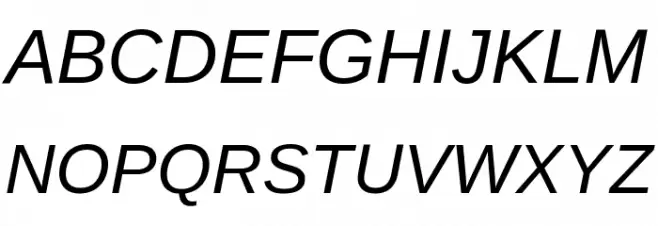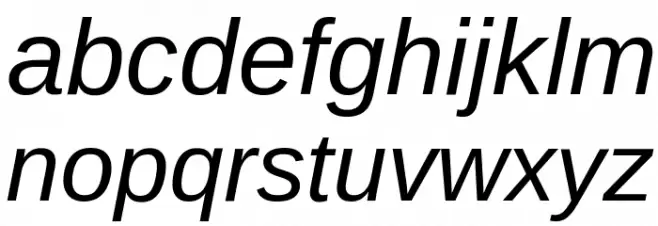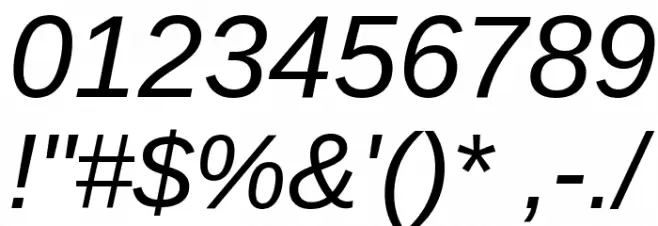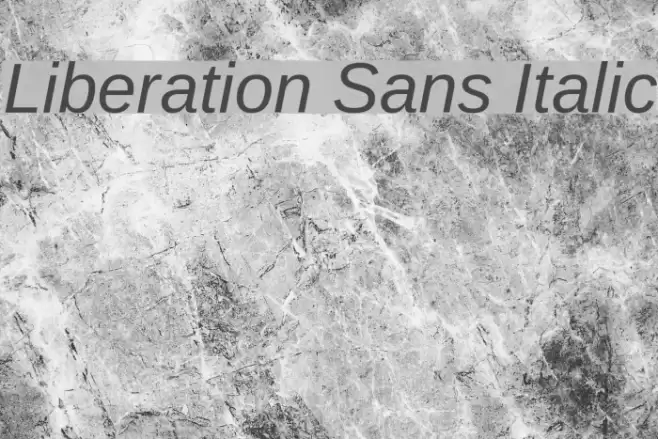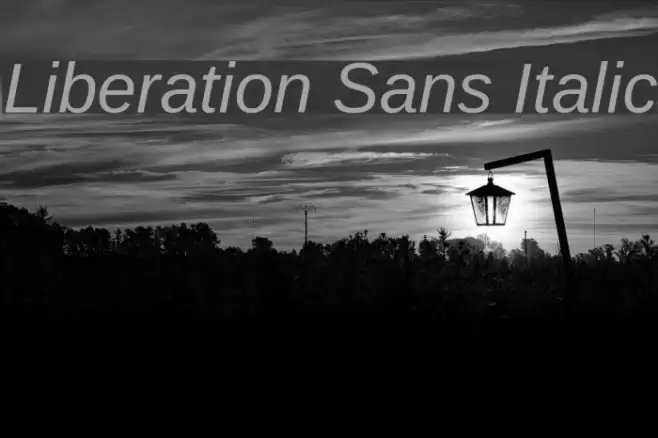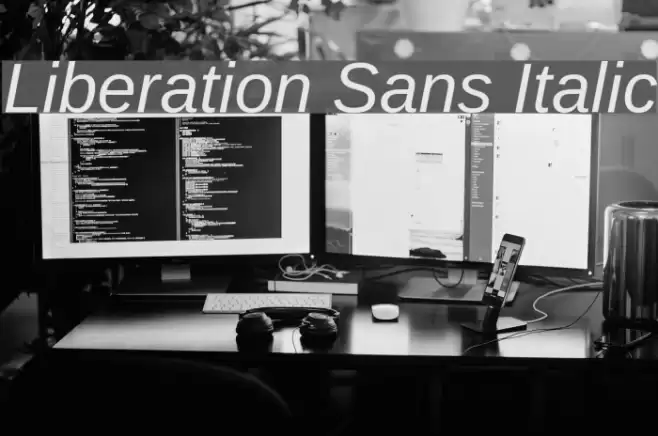
Liberation Sans Italic
This font is a clean and modern sans-serif typeface with a subtle italic slant, giving it a dynamic and slightly forward-leaning appearance. The characters are evenly spaced and well-proportioned, contributing to excellent readability. The strokes are consistent in weight, providing a uniform look across all characters. Its simplicity and clarity make it suitable for a wide range of applications, from digital interfaces to print media. The font maintains a professional and contemporary aesthetic, making it versatile for both formal and informal contexts.
A modern, italic sans-serif font with clean lines and excellent readability.
- Proposed Projects: Ideal for web design, corporate branding, presentations, and editorial content.